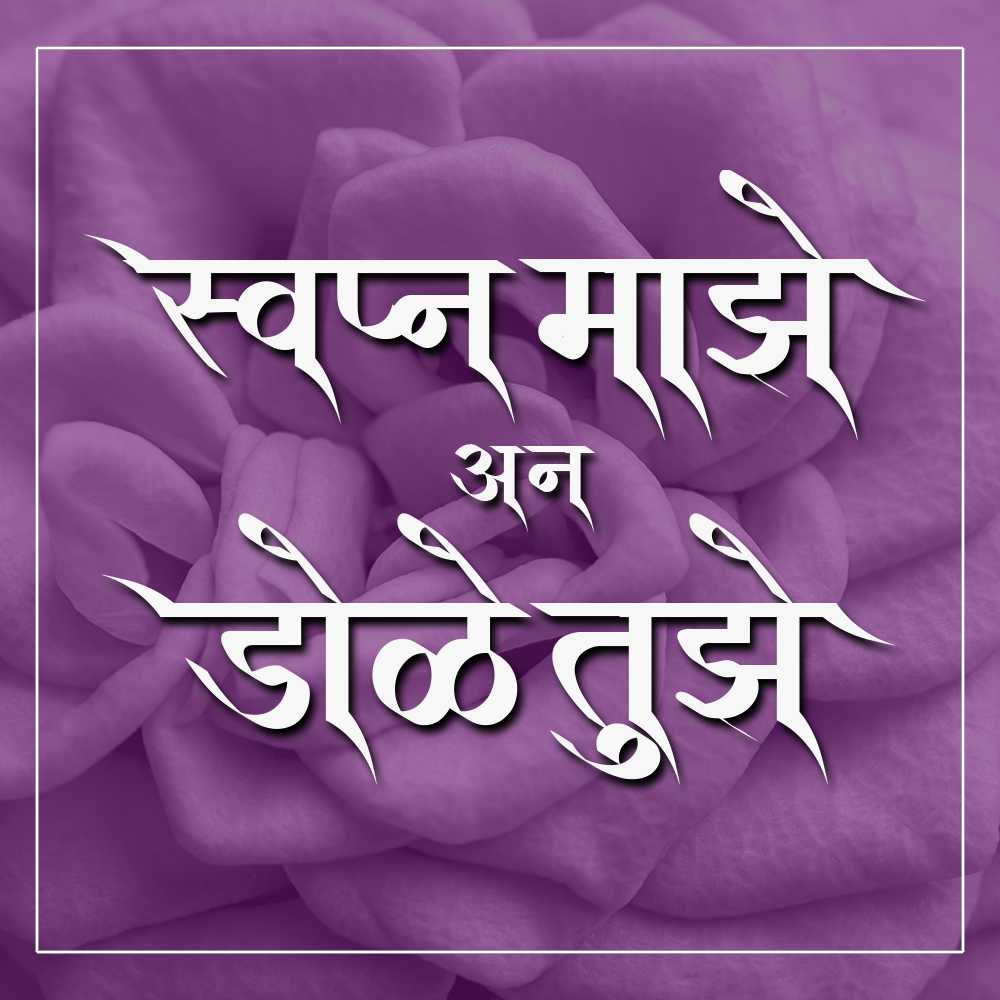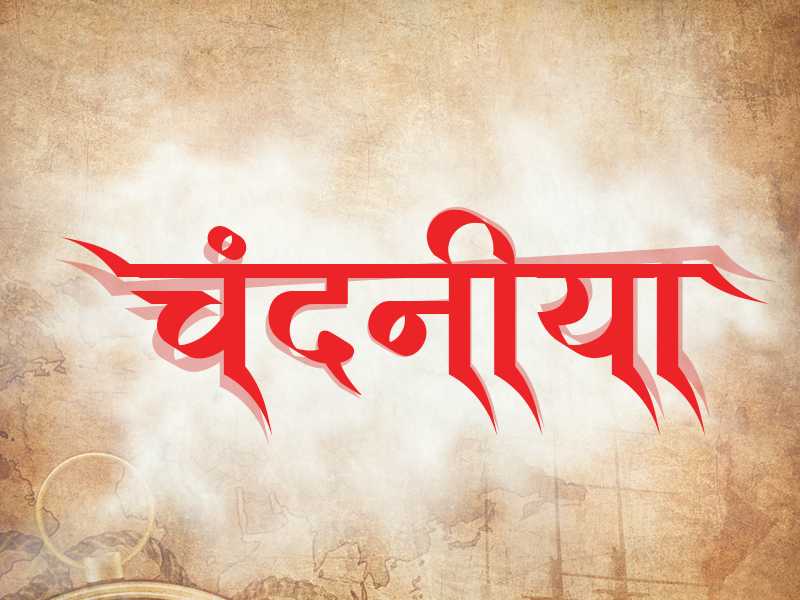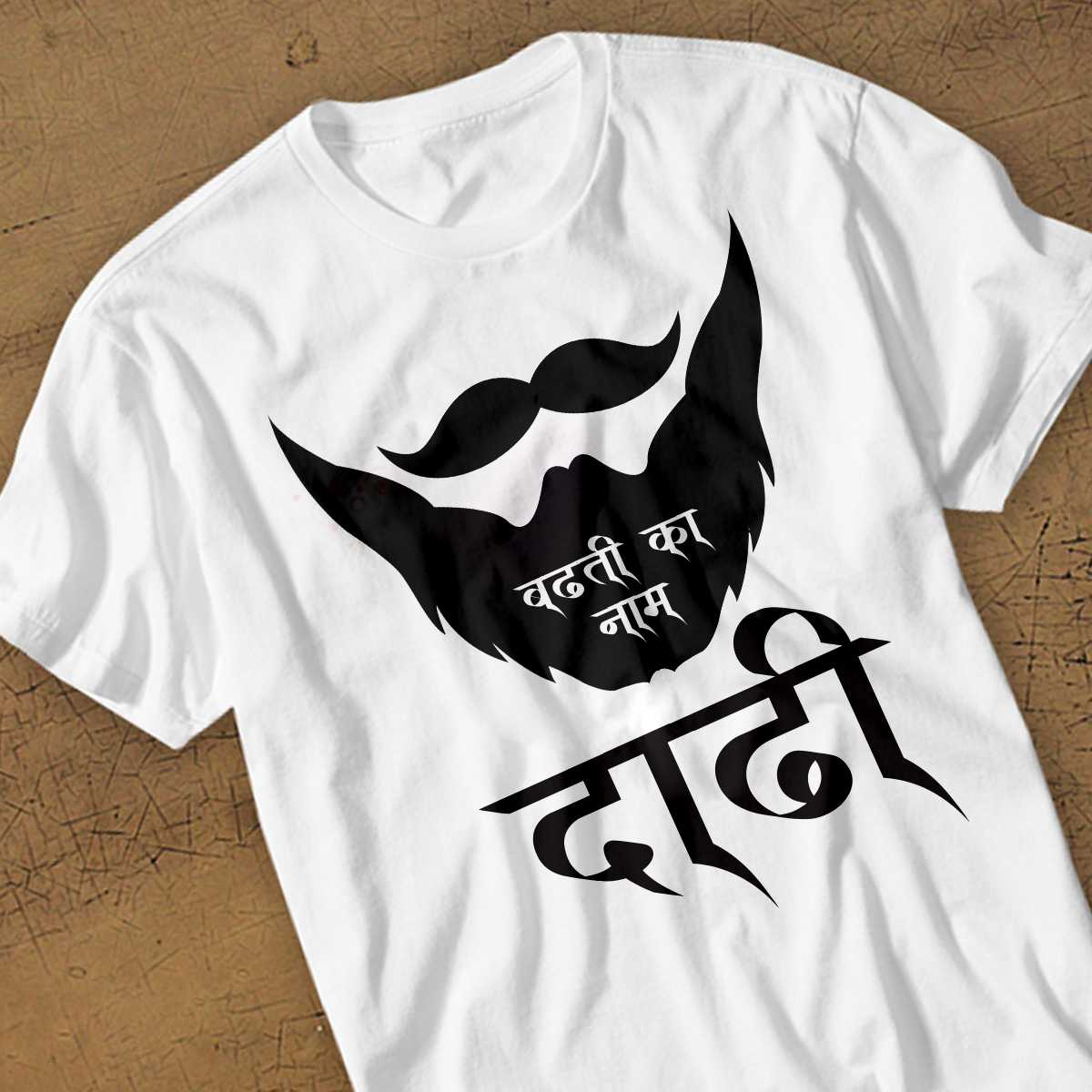
AMS Calligraphy 4
Unleash your creativity with AMS Calligraphy 4, a free font that offers the perfect blend of style and expression. With its bold and dynamic letterforms, this AMS font is ideal for those searching for AMS calligraphy fonts or looking for Amsterdam font free download options.
AMS Calligraphy 4 Design Inspiration
About AMS Calligraphy 4 Font
Unleash your creativity with AMS Calligraphy 4, a free font that offers the perfect blend of style and expression. With its bold and dynamic letterforms, this AMS font is ideal for those searching for AMS calligraphy fonts or looking for Amsterdam font free download options. This calligraphy font combines elegance with functionality, making it perfect for various design applications.
AMS Calligraphy 4 is a professionally crafted calligraphy typeface that brings clarity and style to your projects. Designed with attention to detail, it supports hindi and marathi characters flawlessly.
Whether you're working on invitations, logos, cultural-religious-designs, or other creative projects, AMS Calligraphy 4 delivers consistent performance across both digital and print media. This carefully designed typeface ensures readability and visual appeal in all your design work.
About AMS Calligraphy 4 Typography Style
AMS Calligraphy 4 is a professionally crafted calligraphy font that exemplifies modern Hindi typography design. This free font is perfect for designers seeking professional branding and logo design projects.
Available in 1 weight and supporting hindi, marathi scripts, AMS Calligraphy 4 offers exceptional versatility for both digital and print media. Whether you're working on invitations, logos, cultural-religious-designs, this carefully designed typeface ensures consistent quality and professional results across all your typography projects.